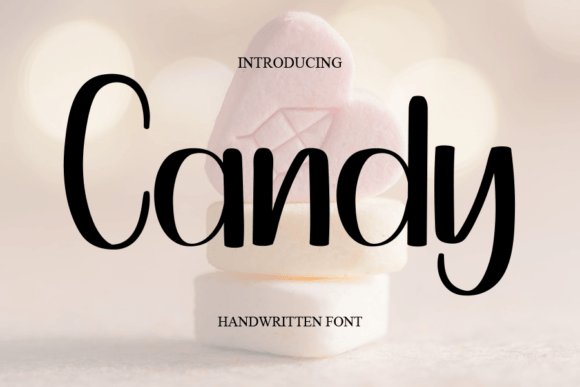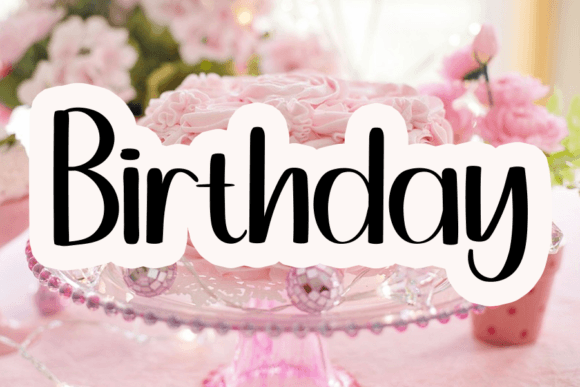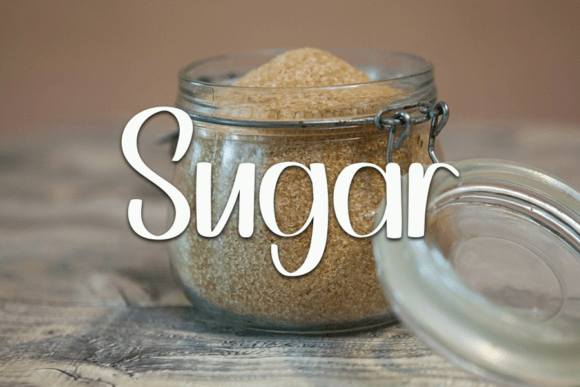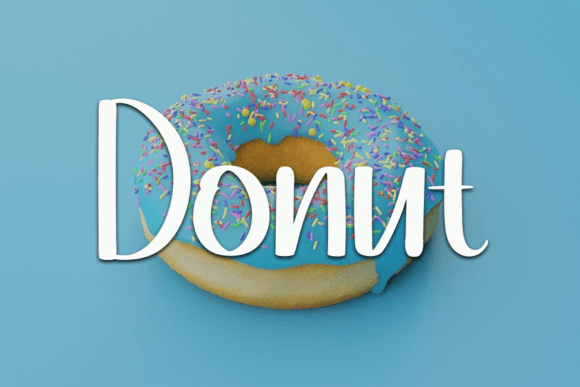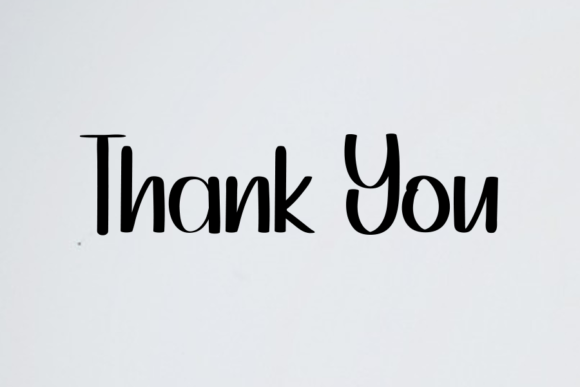
Candy Font
About Candy Font
Candy is a sweet and beautiful handwritten font. Featuring characters that dance along the baseline, this font will add a luxury spark to any design project you wish to create!